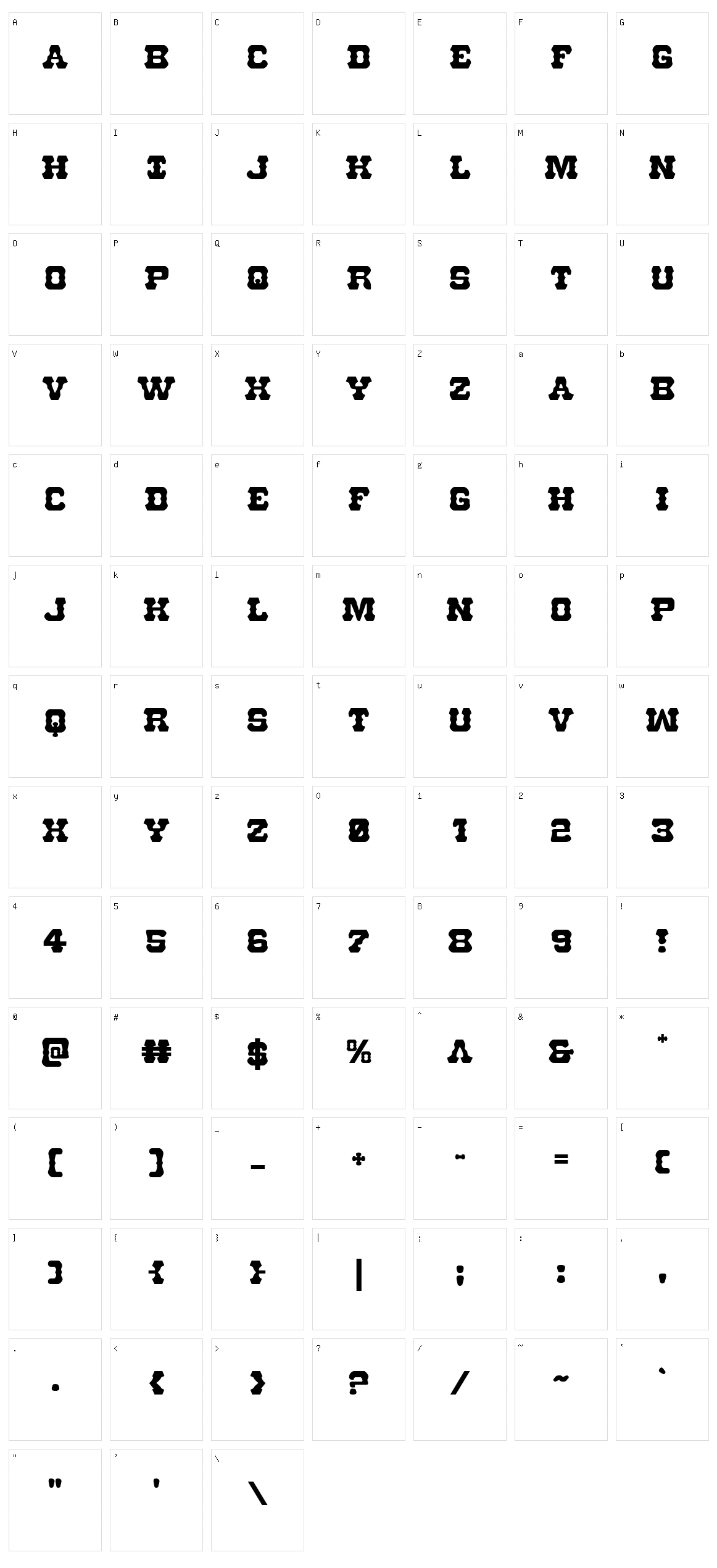
This font comes with the following 13 versions: Regular, Italic, Semi-Italic, Condensed, Condensed Italic, Expanded, Expanded Italic, 3D, 3D Italic, Shadow, Shadow Italic, Semi-Leftalic and Leftalic.